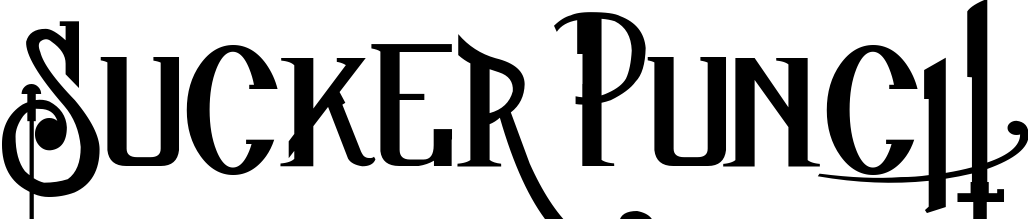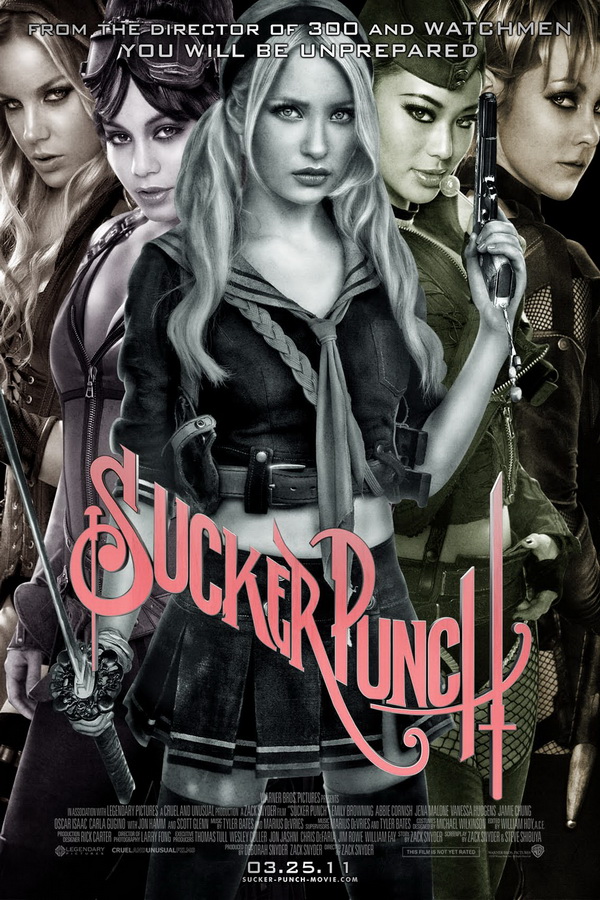
Sucker Punch Font
FantasySucker Punch is a 2011 American action-fantasy film directed by Zack Snyder. The plot follows a young woman named Babydoll who is institutionalized by her abusive stepfather and escapes into a fantasy world where she battles various enemies with the help of her fellow inmates.
The film "Sucker Punch" title lettering resembles a free font named Sucker by Juan Casco. It features a complete set of uppercase letters, lowercase letters, punctuation marks, and accented letters.